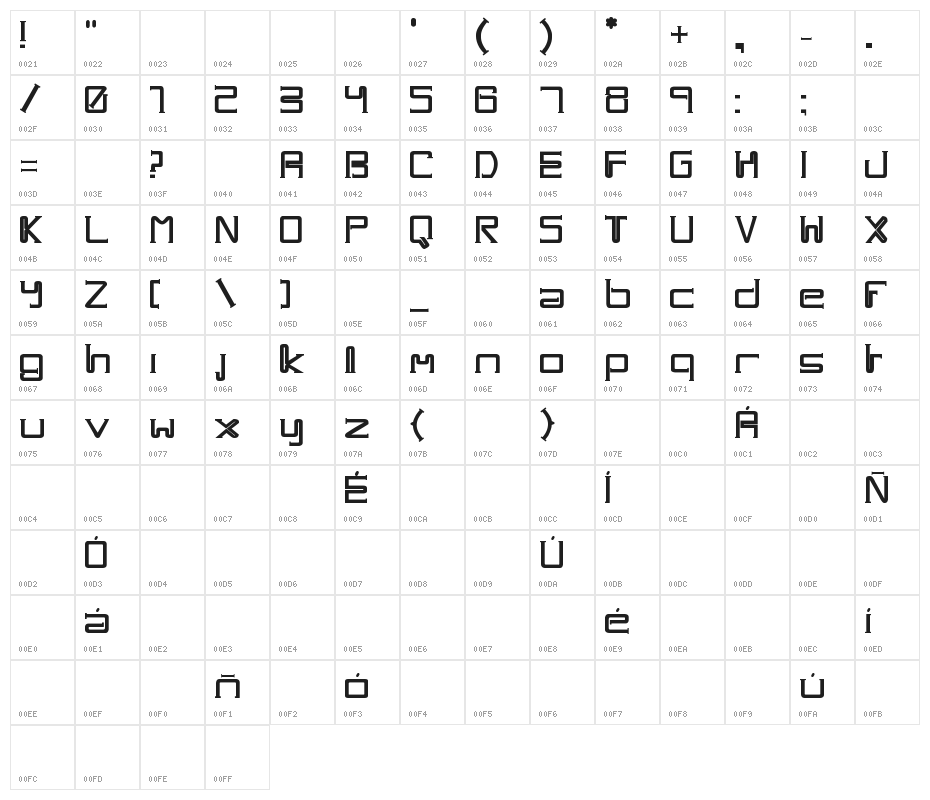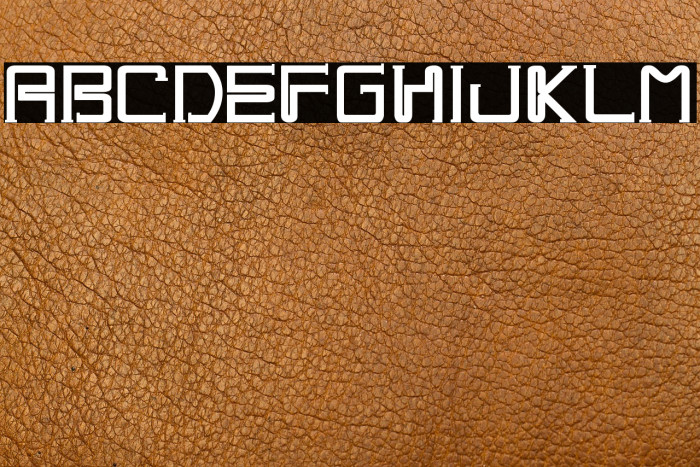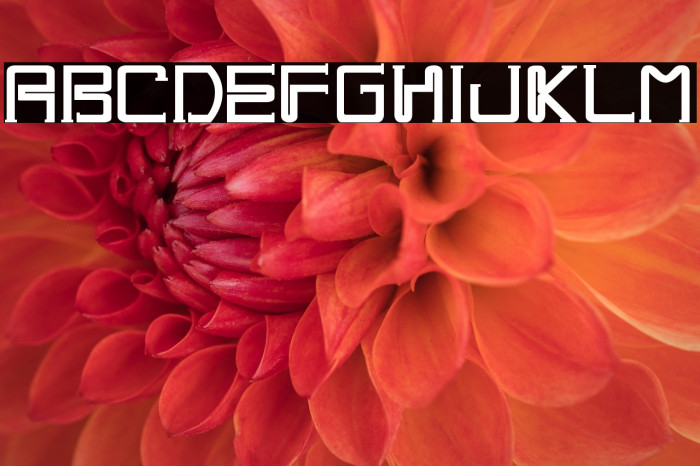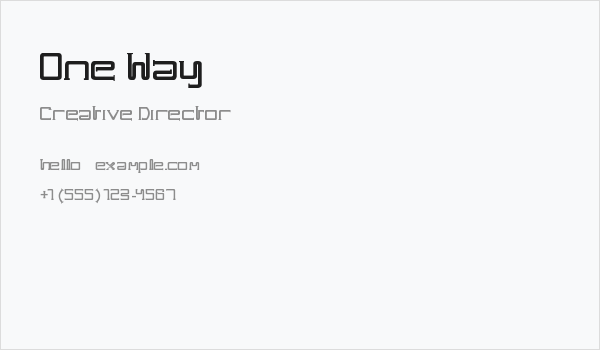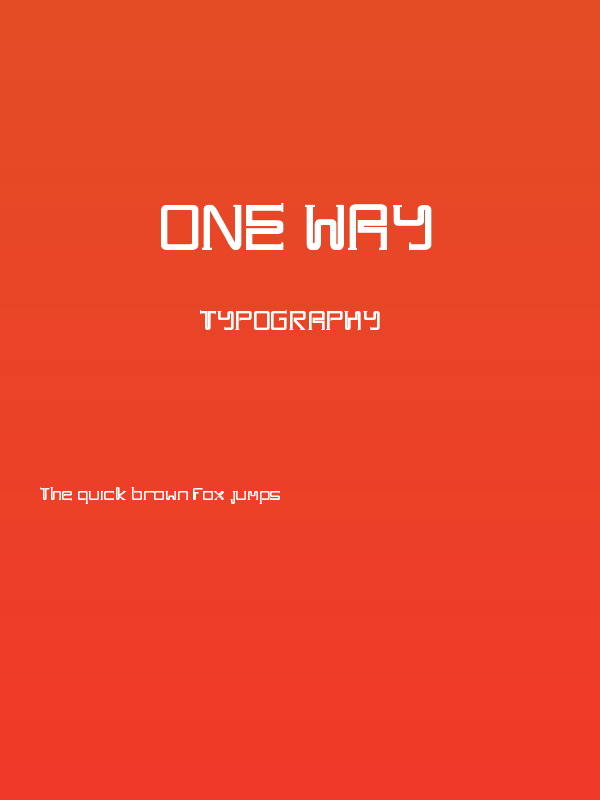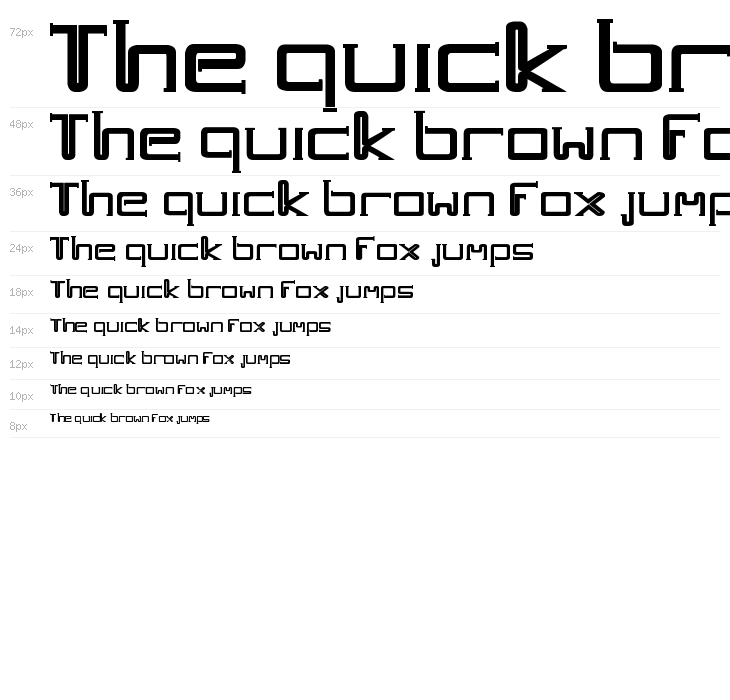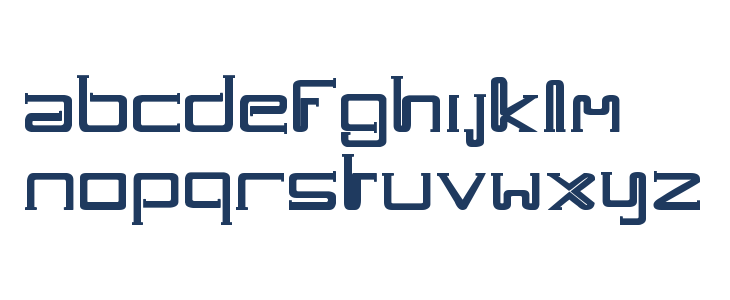
One Way Font
One Way Description
This font features a modern, geometric design with a distinct futuristic flair. The characters are constructed with clean, straight lines and sharp angles, giving it a technical and digital appearance. The uppercase and lowercase letters maintain a consistent style, with some characters featuring unique cutouts and angular details that enhance its modern aesthetic. The numerals and special characters follow the same design principles, ensuring uniformity across the font. Its structured and precise look makes it ideal for projects that require a contemporary and innovative touch.